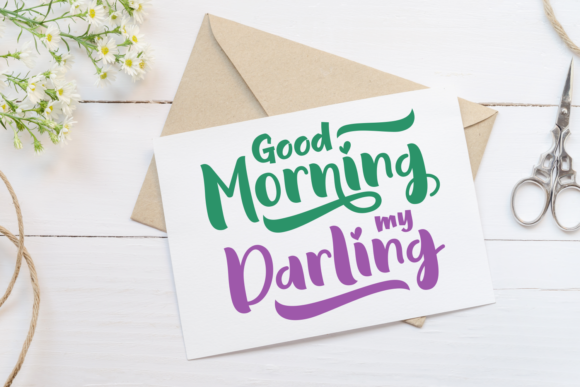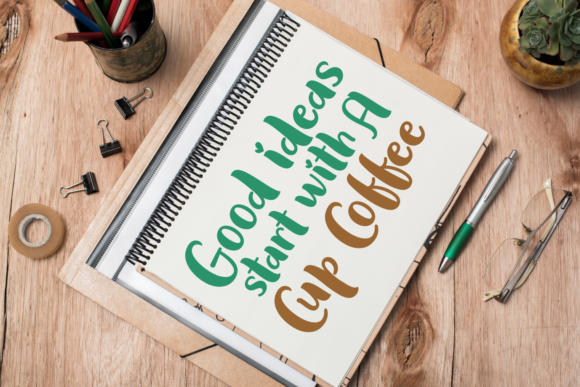
Behind the Scenery Font
db-ku.com - Script & Handwritten -- Behind The Scenery is a beautiful and cute handwritten font with a whimsical twist. It will turn any design idea into a stand out!